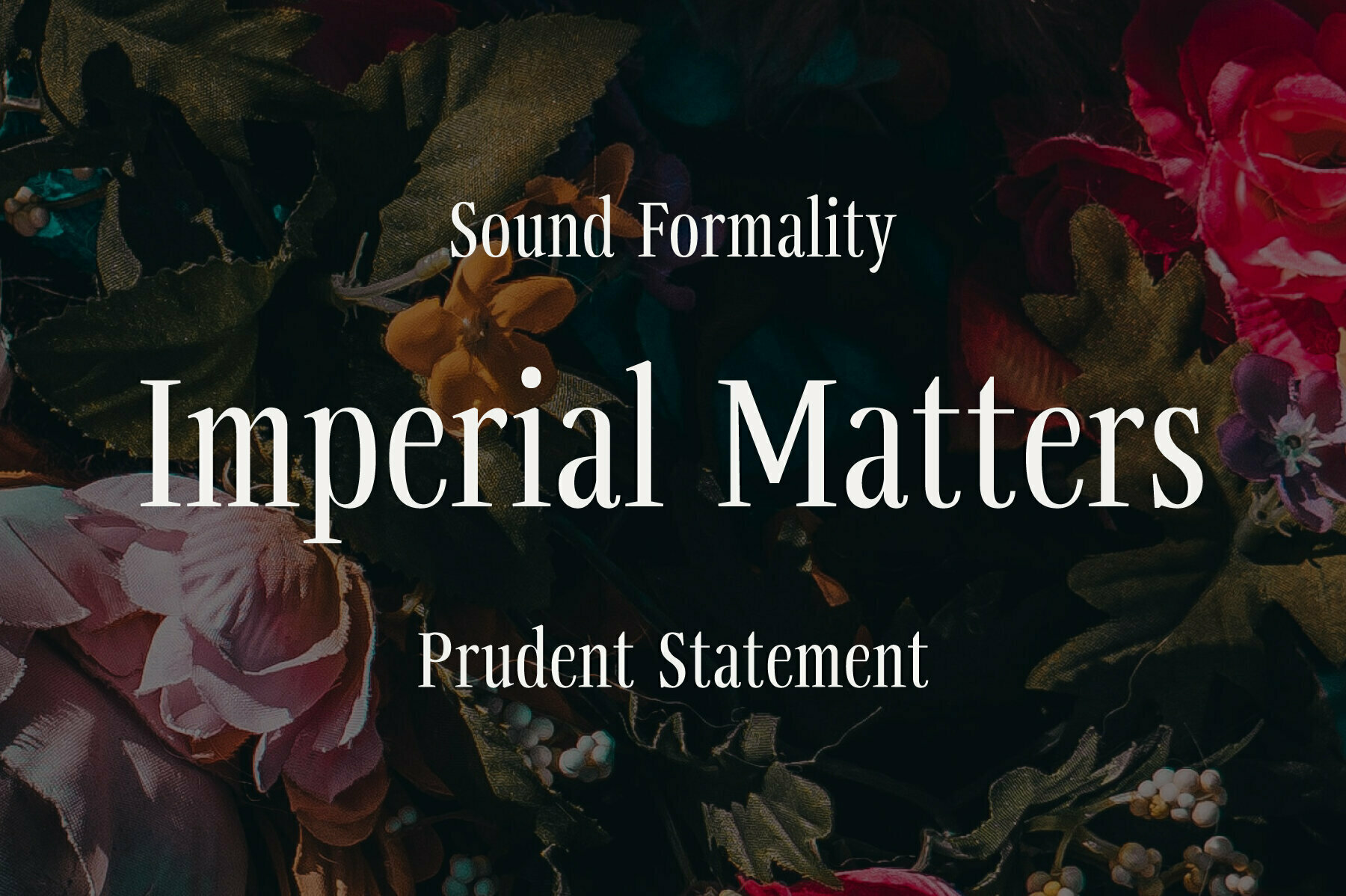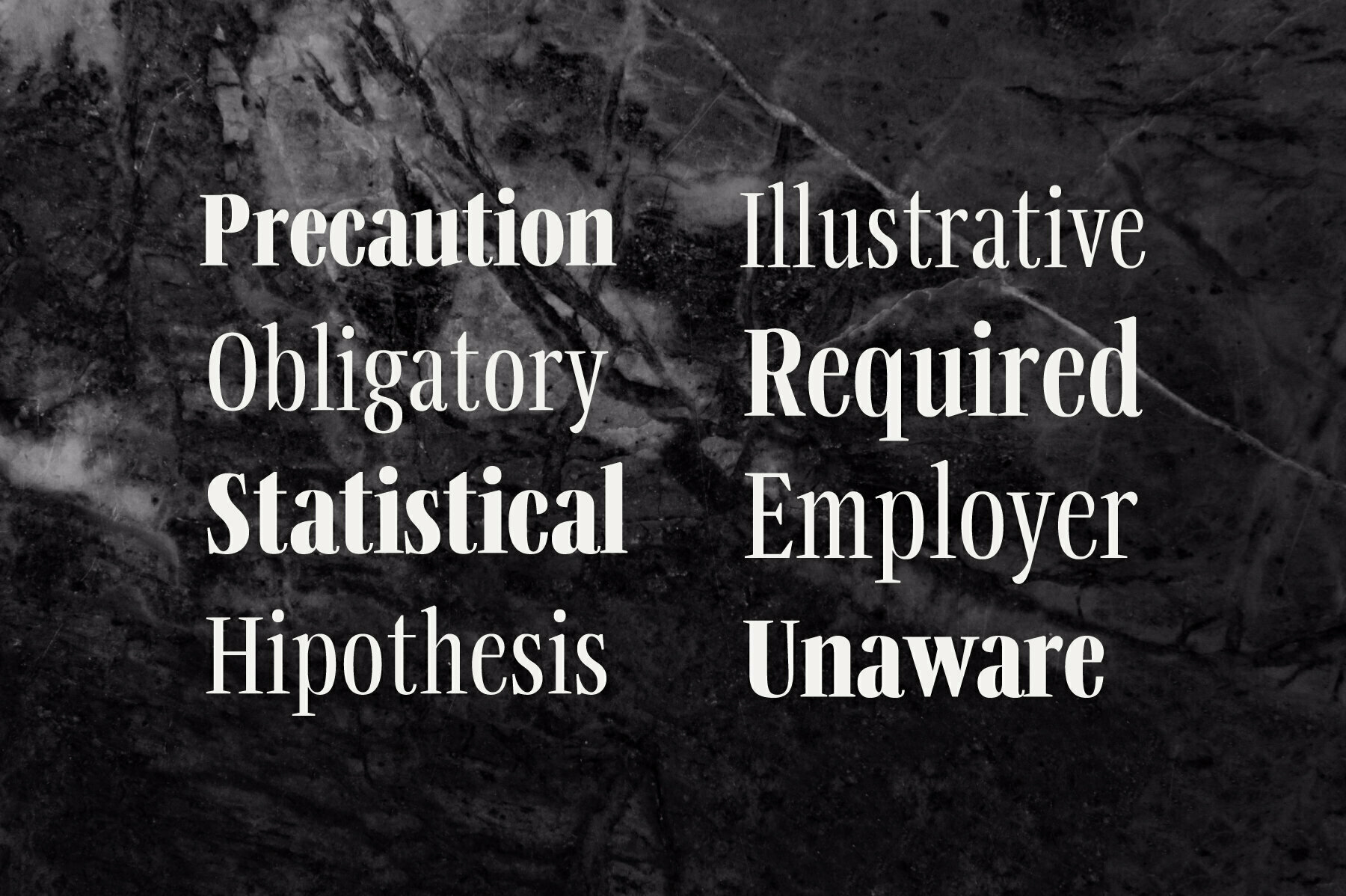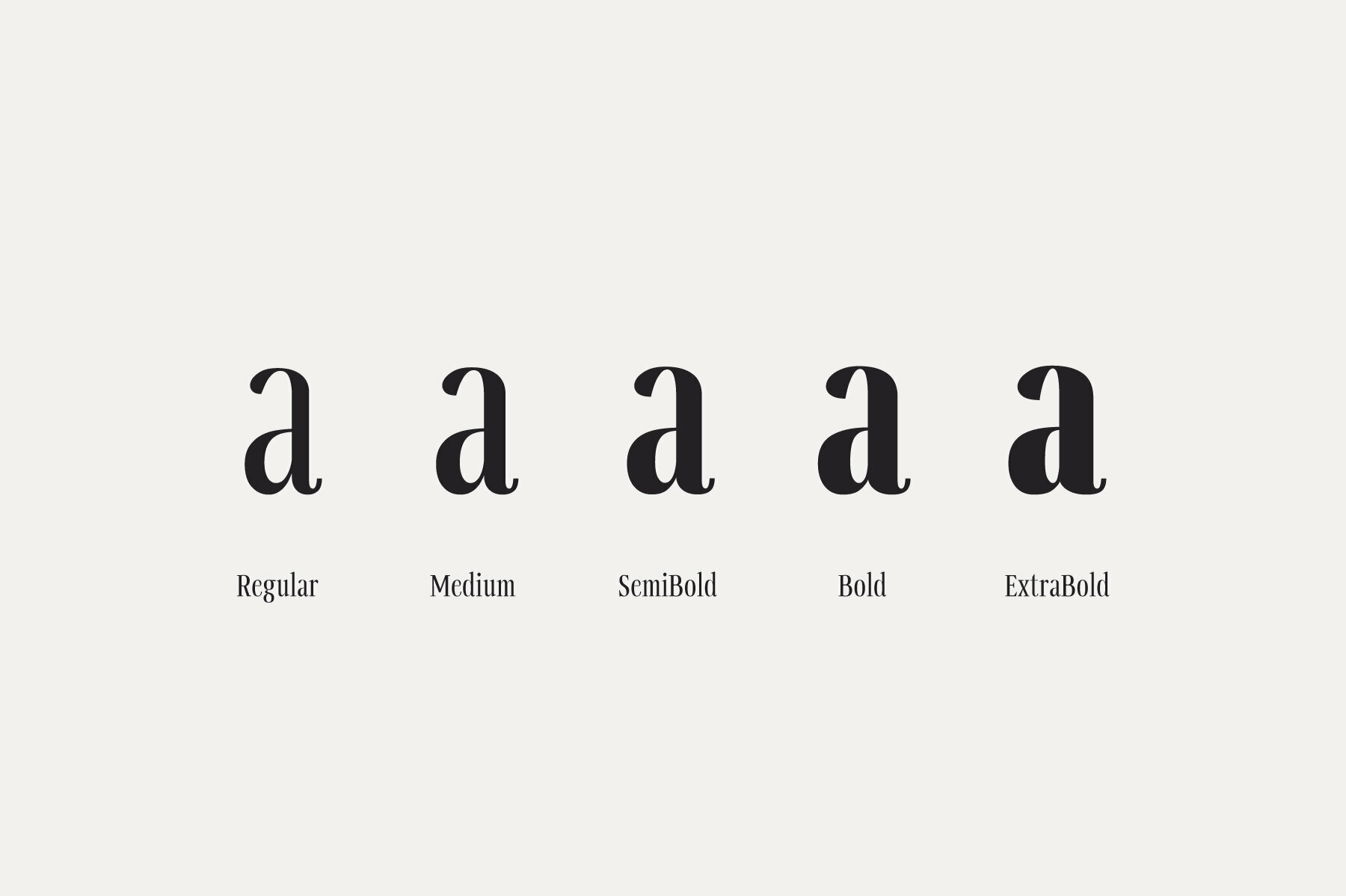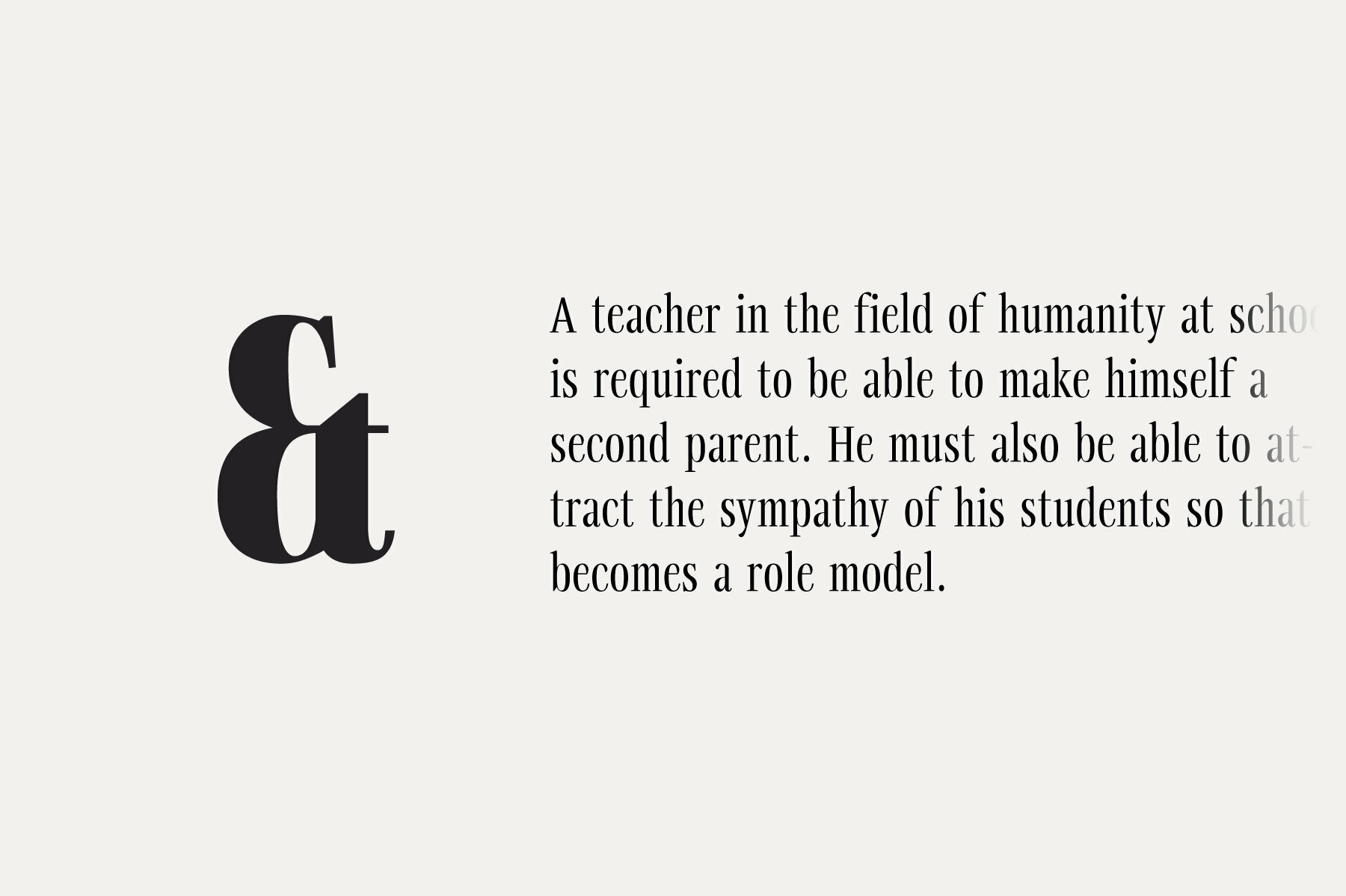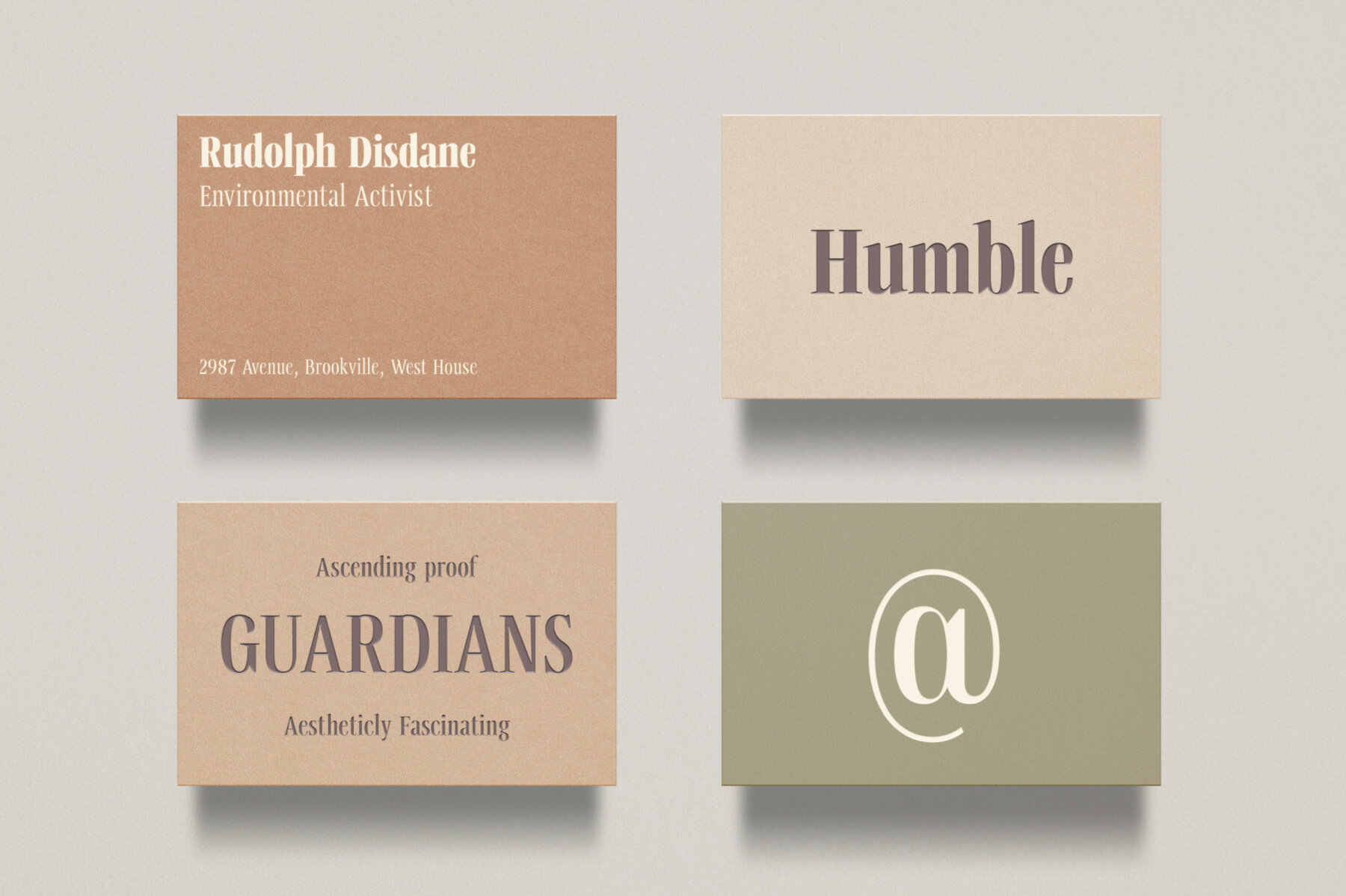
Svelte Font
Svelte is a strikingly compact serif family designed by Eko Bimantara. It boasts a range of upright styles, from Regular to ExtraBold, making it a versatile choice for both display use and short text compositions. This font is particularly effective for stacked typesetting, where its inherent elegance and readability can shine.Svelte: A Condensed Serif Family for Display and Text